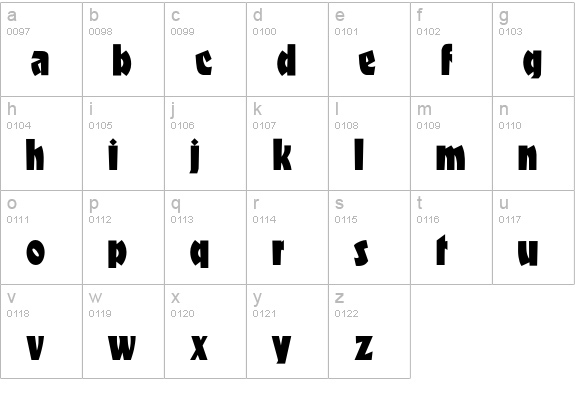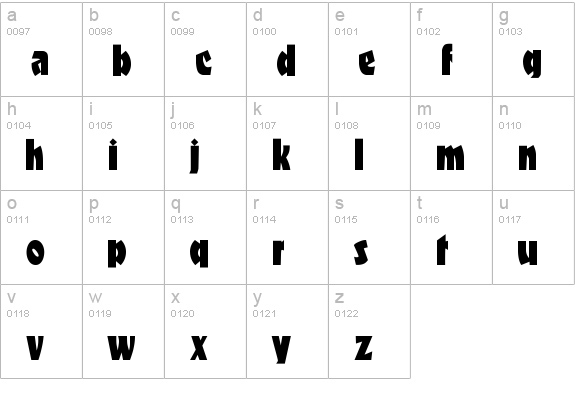
Rumpus font is a playful and whimsical typeface that adds a touch of fun to any design project. With its quirky and irregular letter shapes, Rumpus exudes a sense of creativity and charm. This free font is perfect for creating eye-catching headlines, posters, invitations, and more. Whether you're working on a children's book, a party invitation, or a branding project that needs a unique twist, Rumpus is sure to make your text stand out. Best of all, Rumpus font is freely available to download at FontsMarket.com, making it easily accessible for all your design needs. Add a touch of whimsy to your next project with Rumpus font!